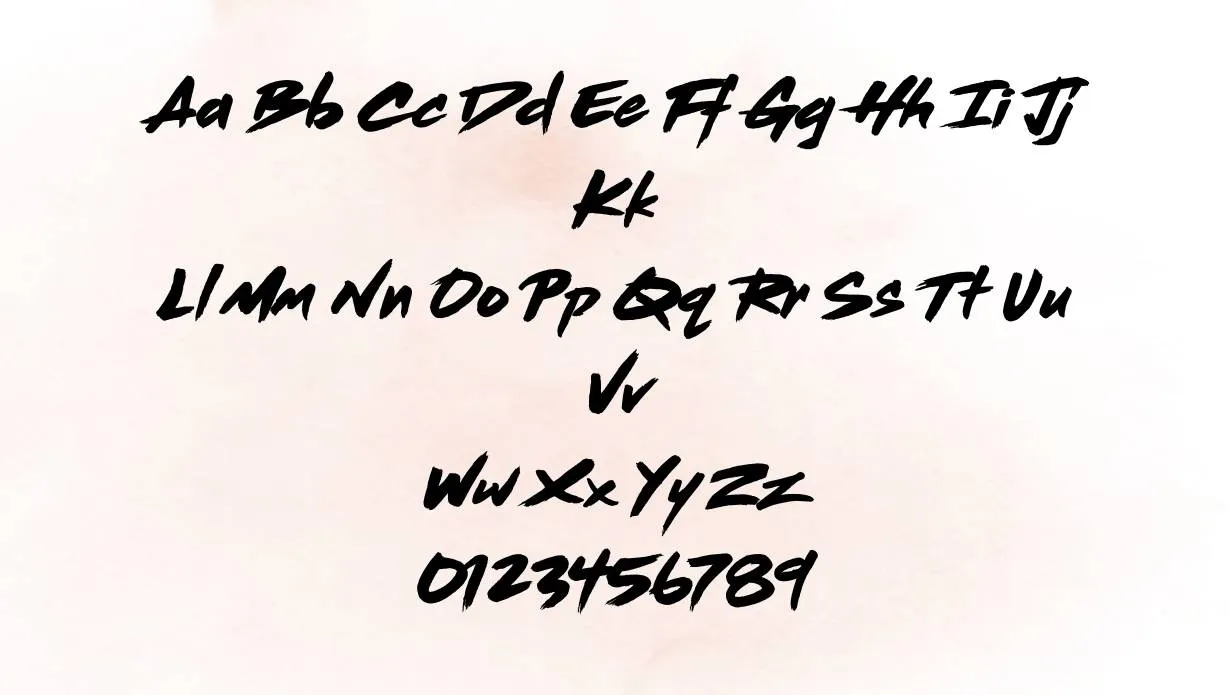
Cobra Kai Font is inspired by the iconic typeface used in the popular television series “Cobra Kai.” This font captures the spirit of the show with its bold and dynamic design. With sharp edges and a strong presence, Cobra Kai Font adds an element of martial arts intensity to your designs.
Ideal for fans of the series or projects that require a bold and impactful typeface, Cobra Kai Font stands out with its unmistakable style, embodying the energy and attitude of the Cobra Kai dojo. Whether used for promotional materials, merchandise, or creative designs, Cobra Kai Font brings a touch of martial arts flair to the typography.
| Name | Cobra Kai Font |
| Designer | BLKBK Fonts |